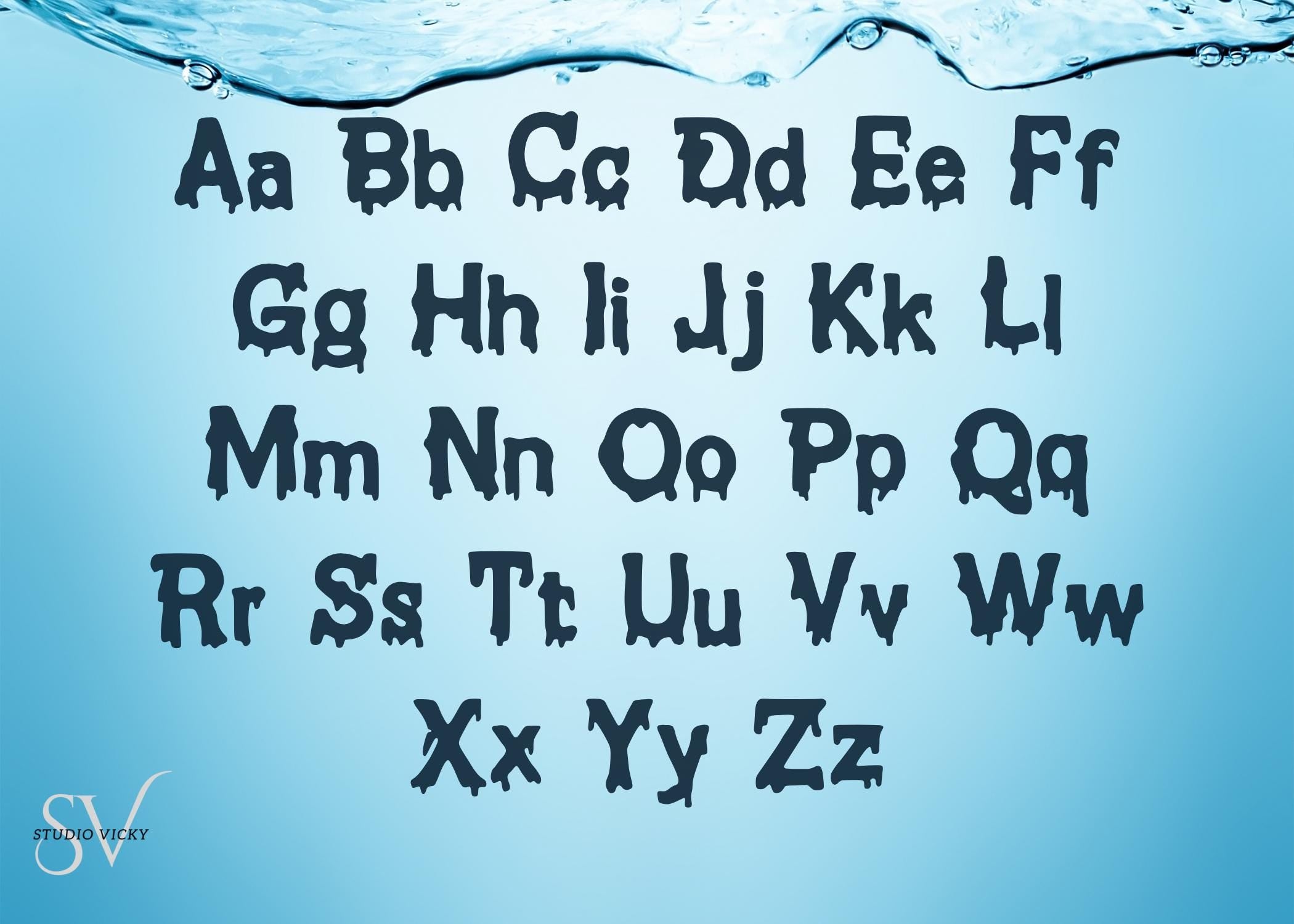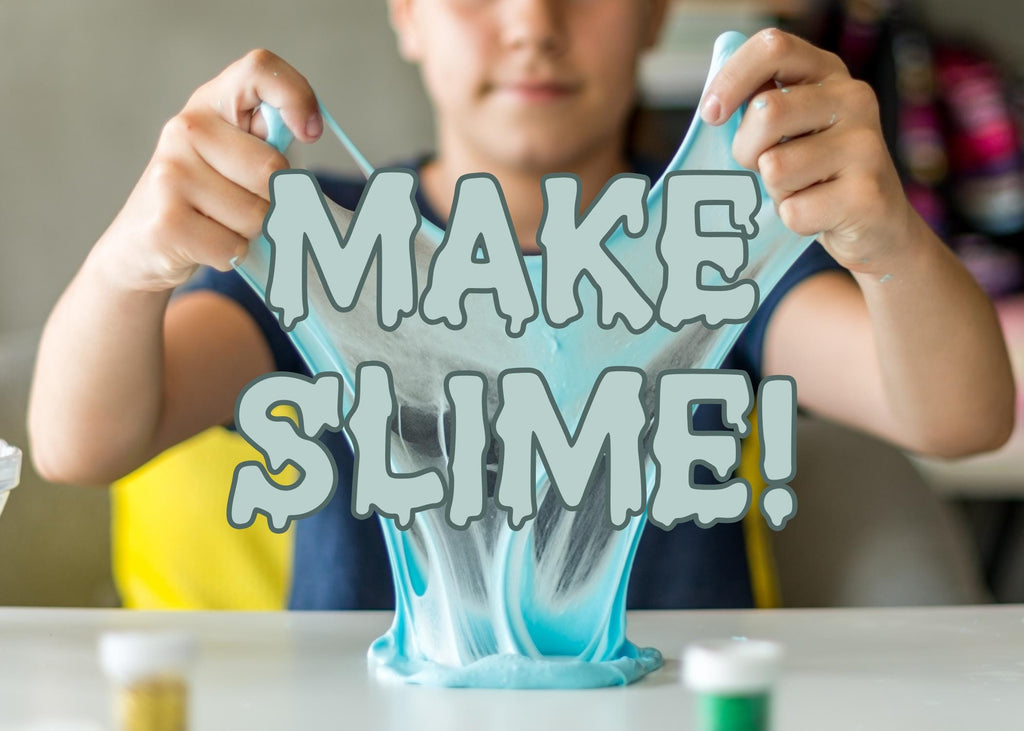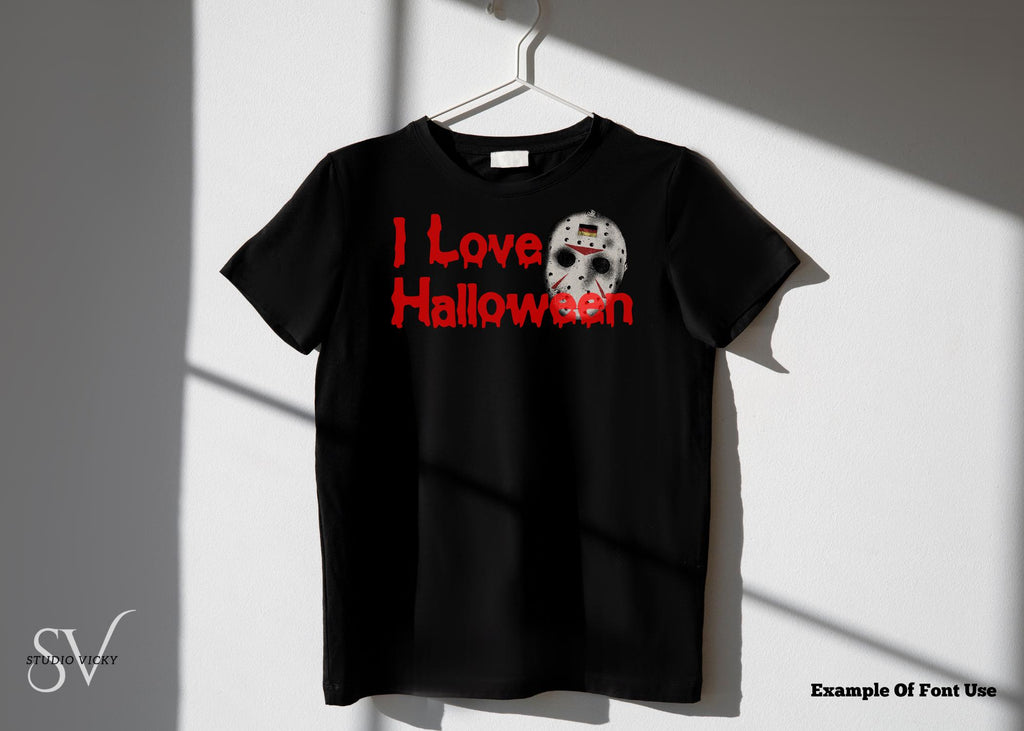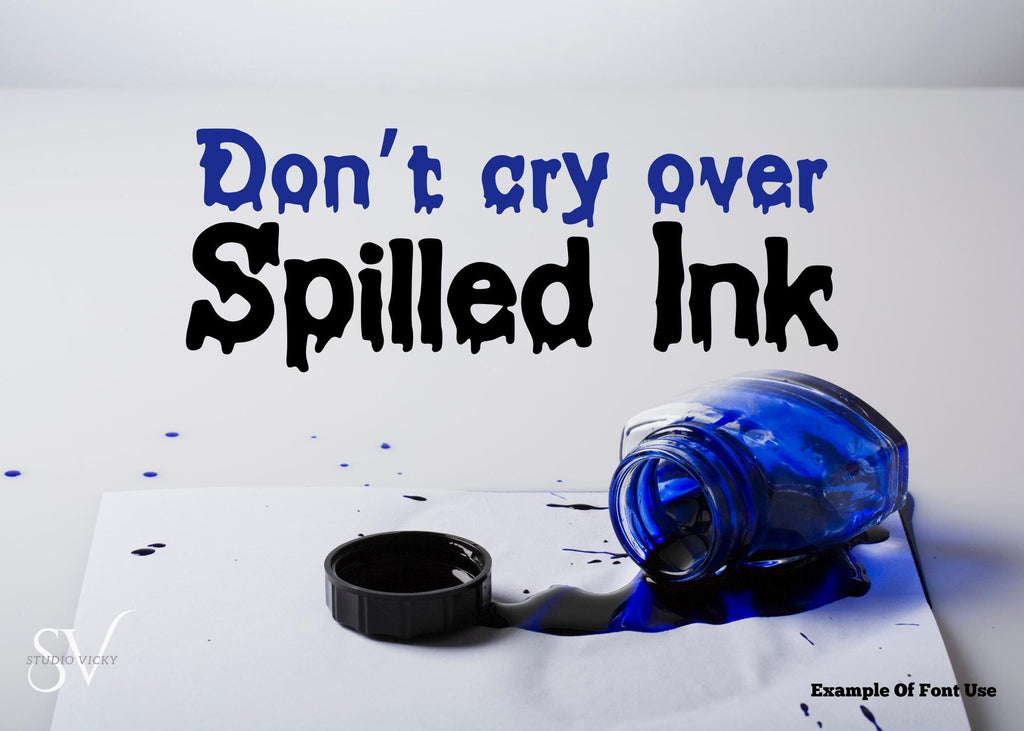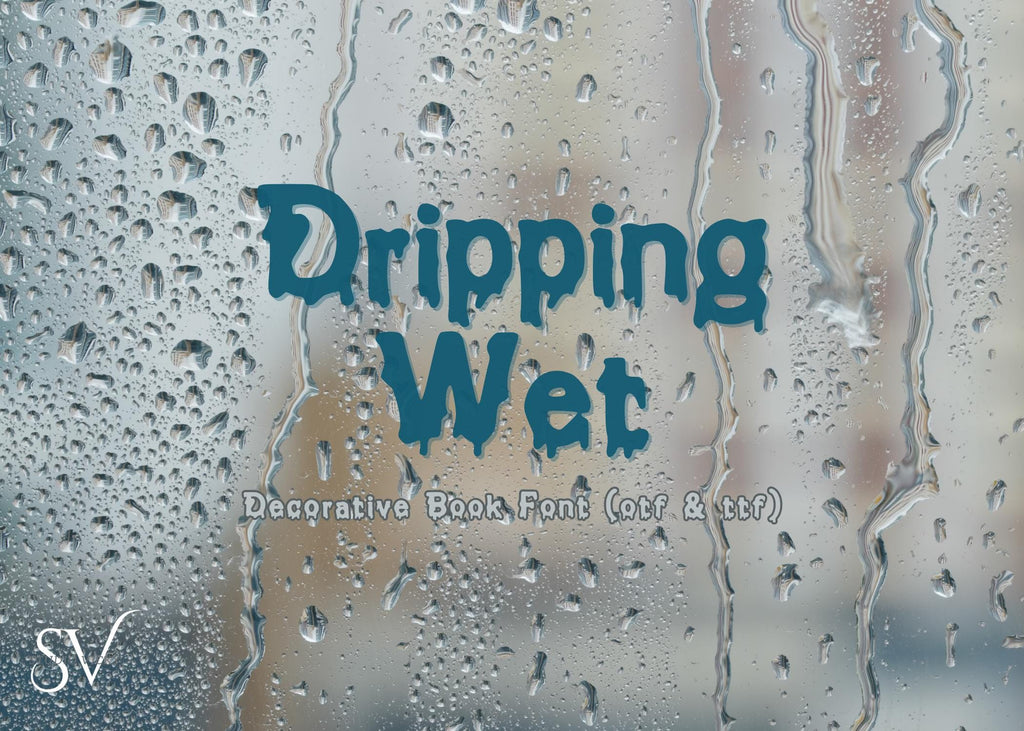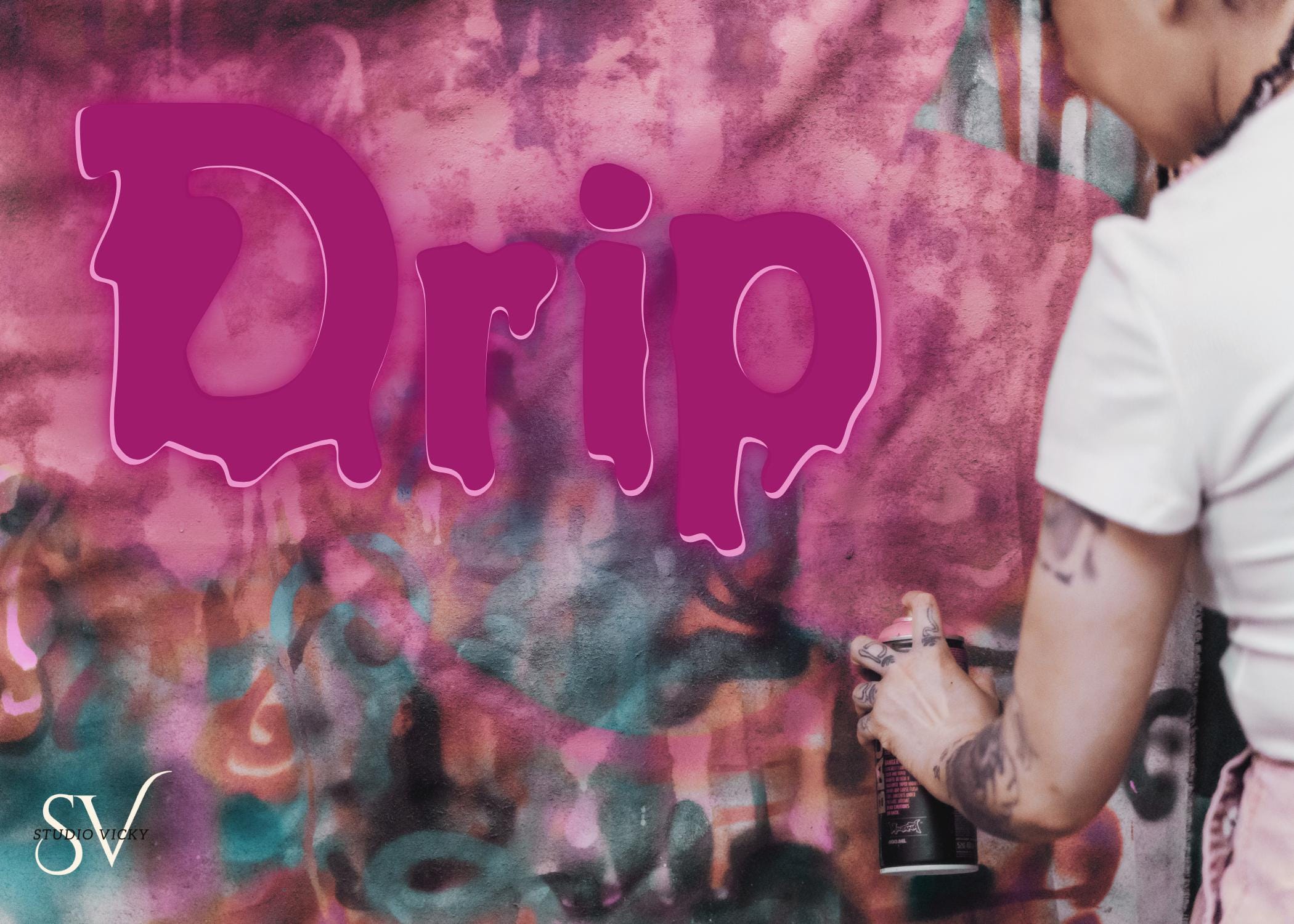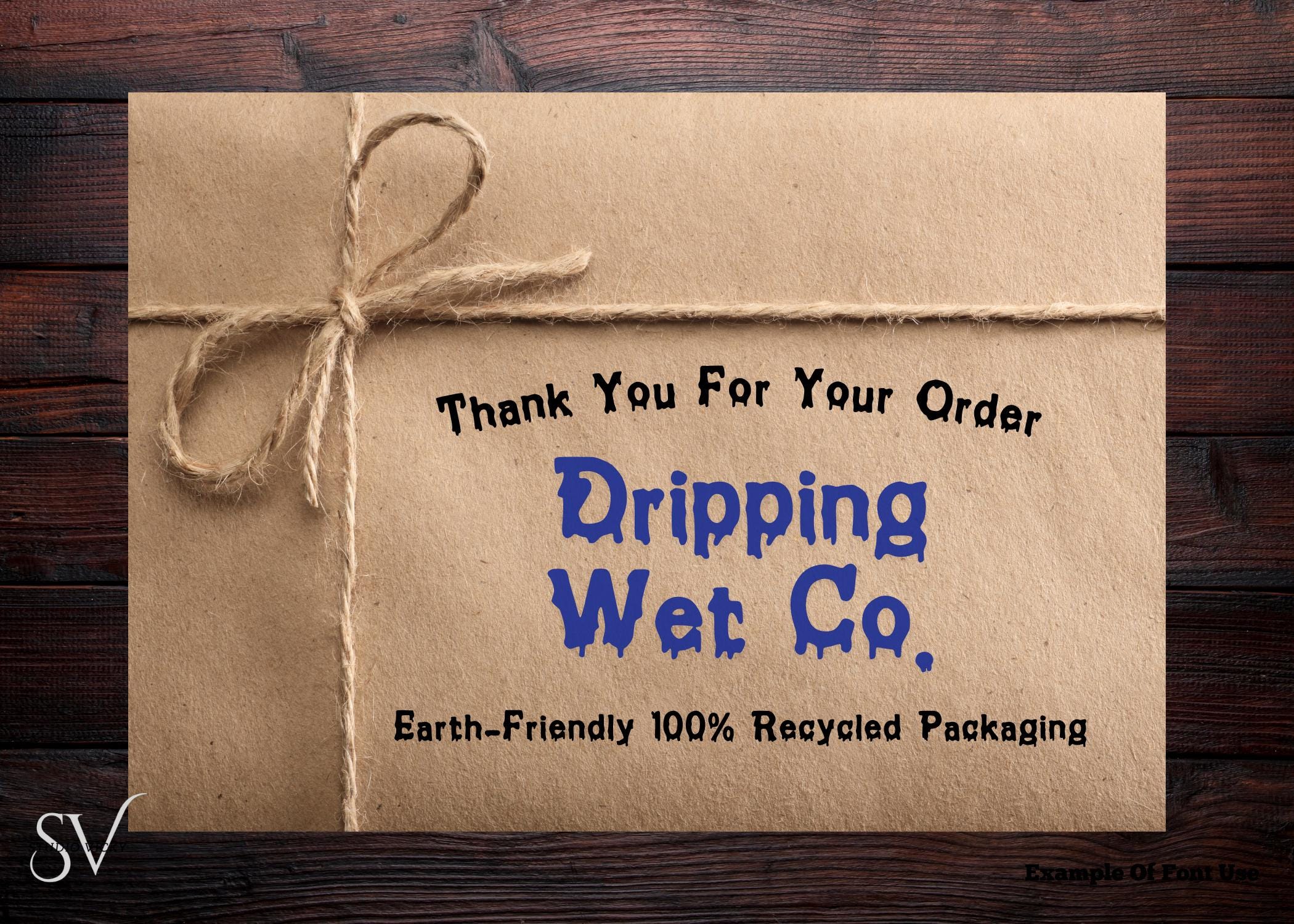
Dripping Wet Font, Ooze and Slime Style (TTF & OTF)
Dripping Wet | Ooze & Slime Font (TTF & OTF)
Slippery, slimy, and just a little spooky... Dripping Wet is a bold decorative font with a gooey, dripping style that oozes personality. Whether you're crafting haunted house signs, monster party invites, or eye-catching slime-themed designs, this font delivers maximum creep factor with a playful twist.
With messy drips and bold strokes, Dripping Wet is perfect for Halloween graphics, horror titles, mad scientist labels, or even gross-out kids' party themes. It walks the line between creepy and fun—great for print, digital, and cut-friendly crafts!
👾 Features:
Gooey drips and splashy style
Ideal for Halloween, horror, or slime-themed projects
Bold, high-impact lettering that’s easy to read and fun to use
Add some slime to your designs with Dripping Wet—perfectly moist in the best way.